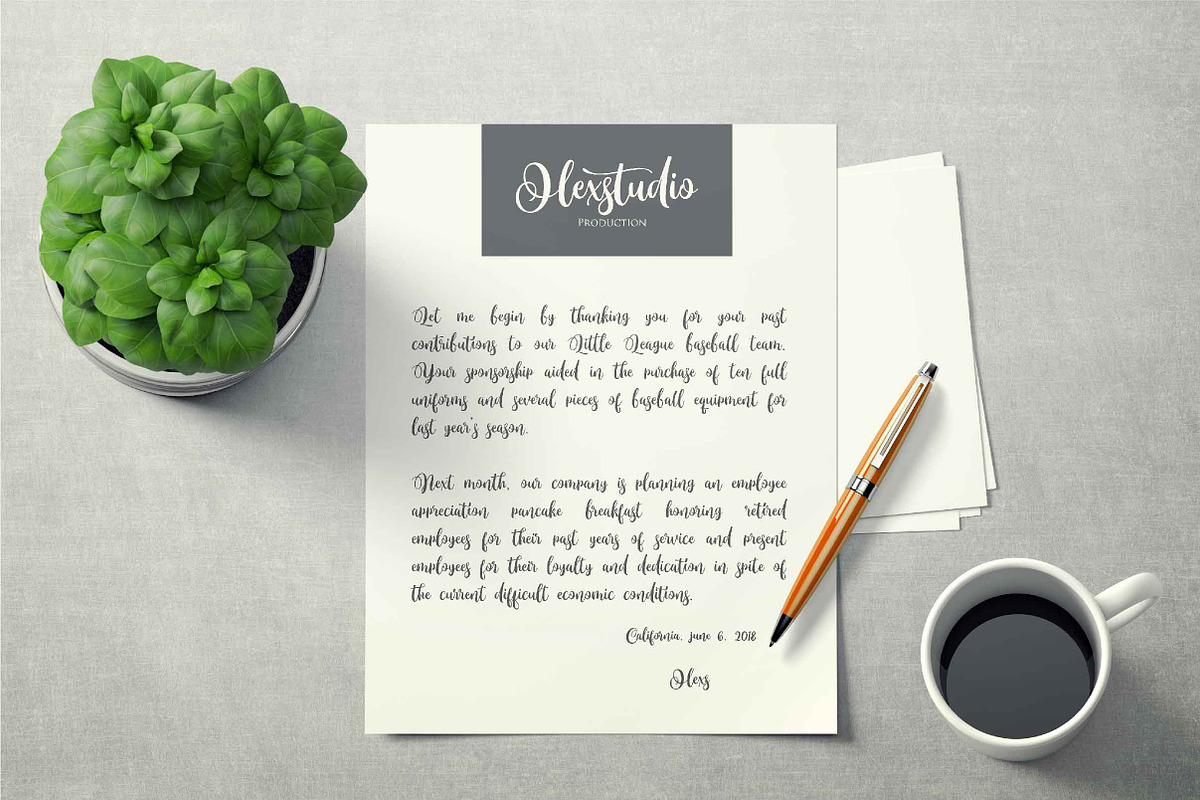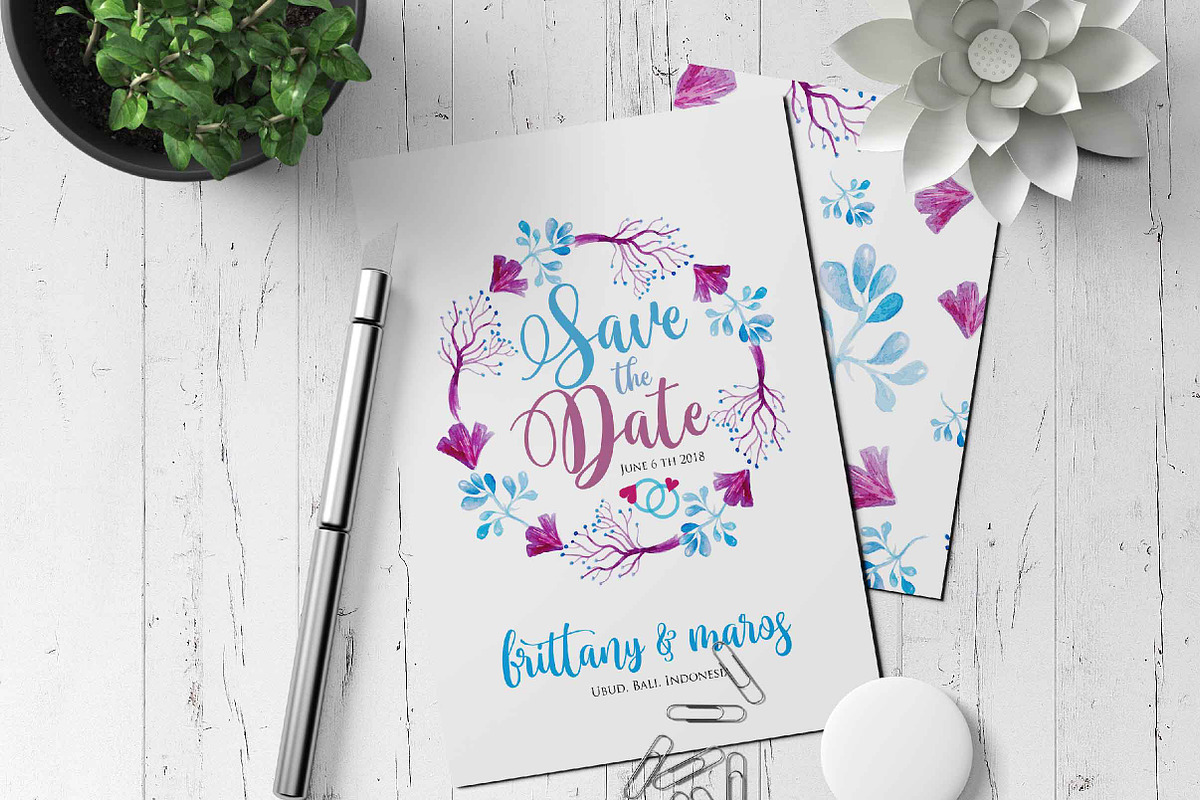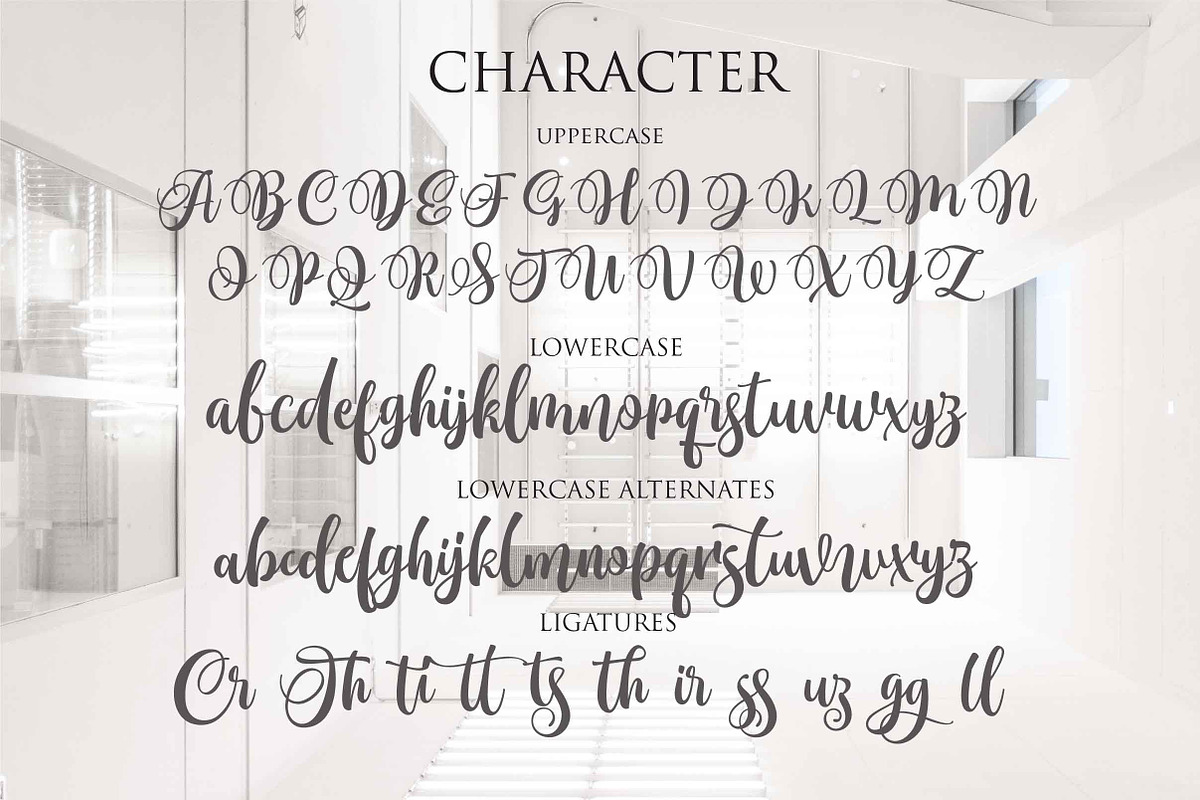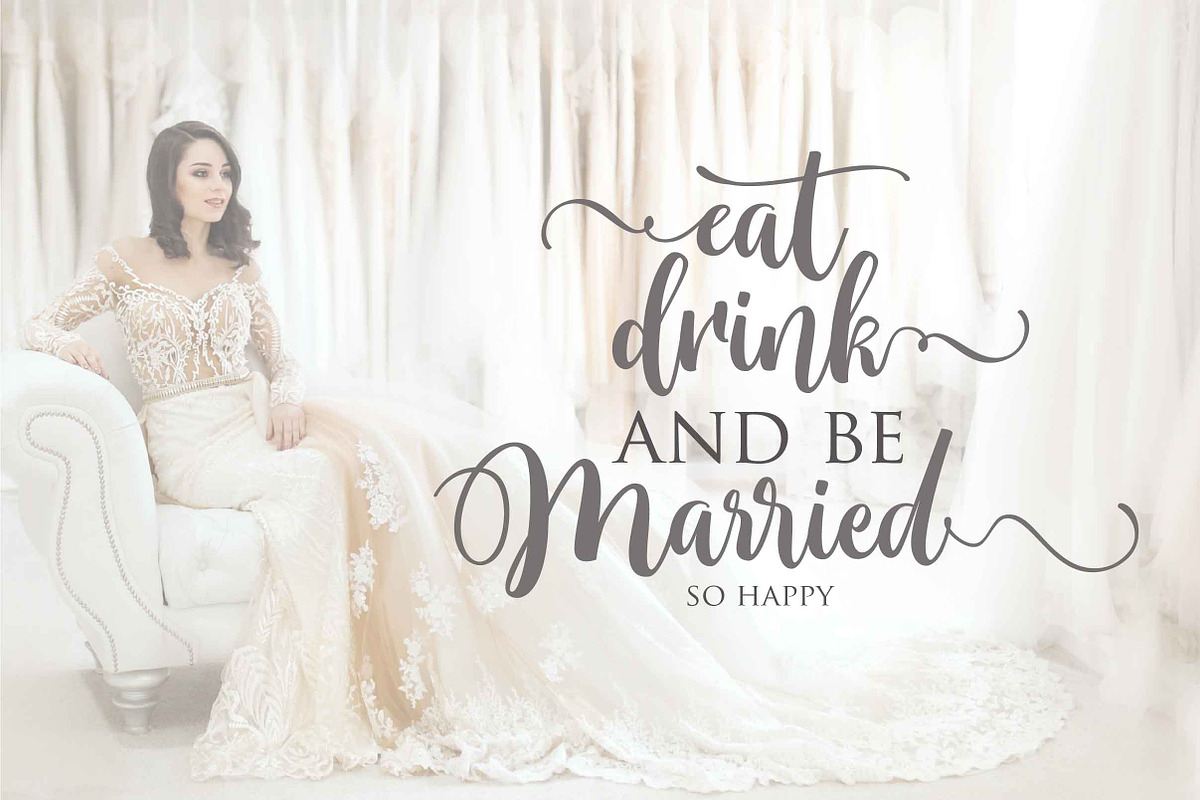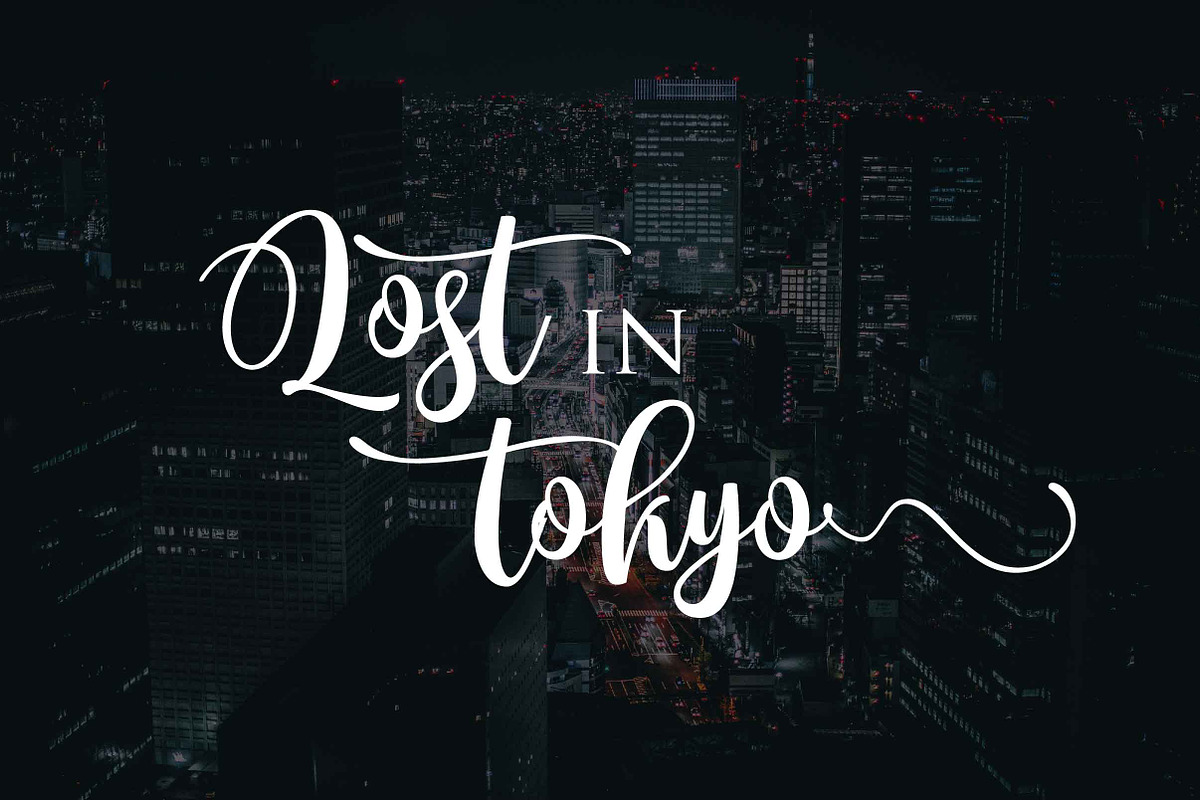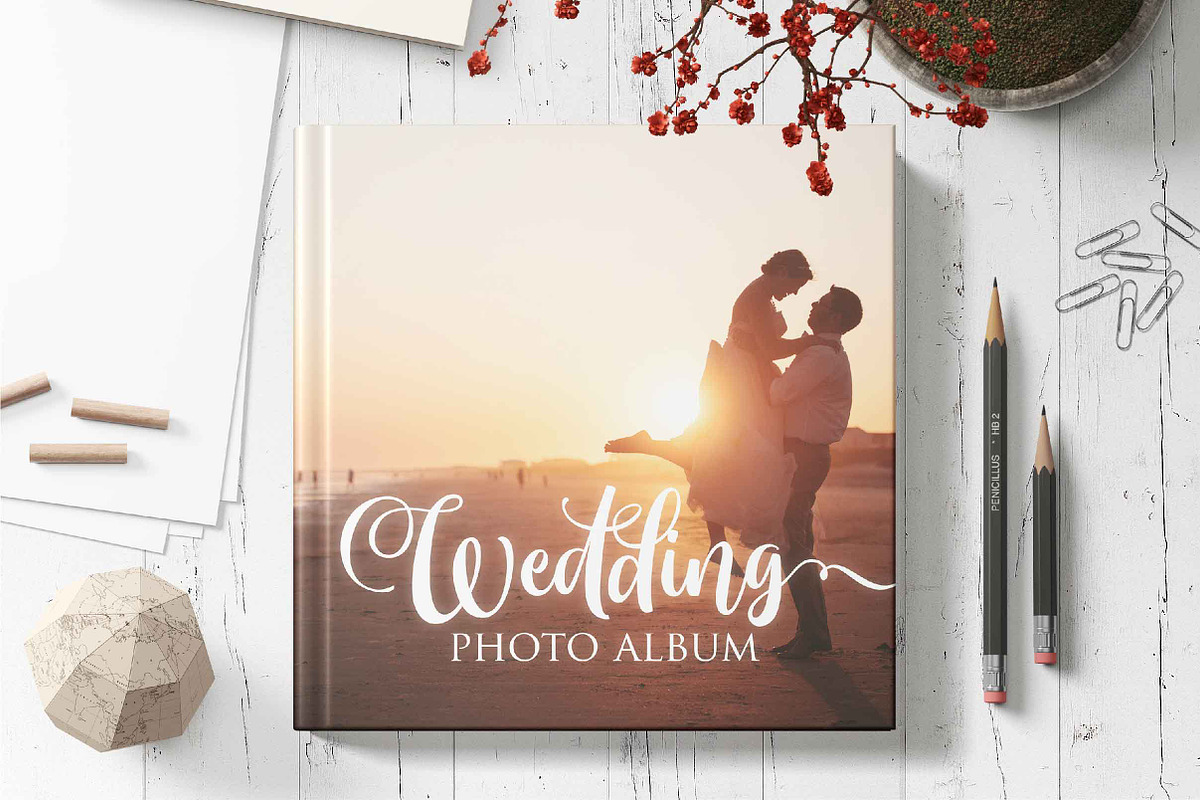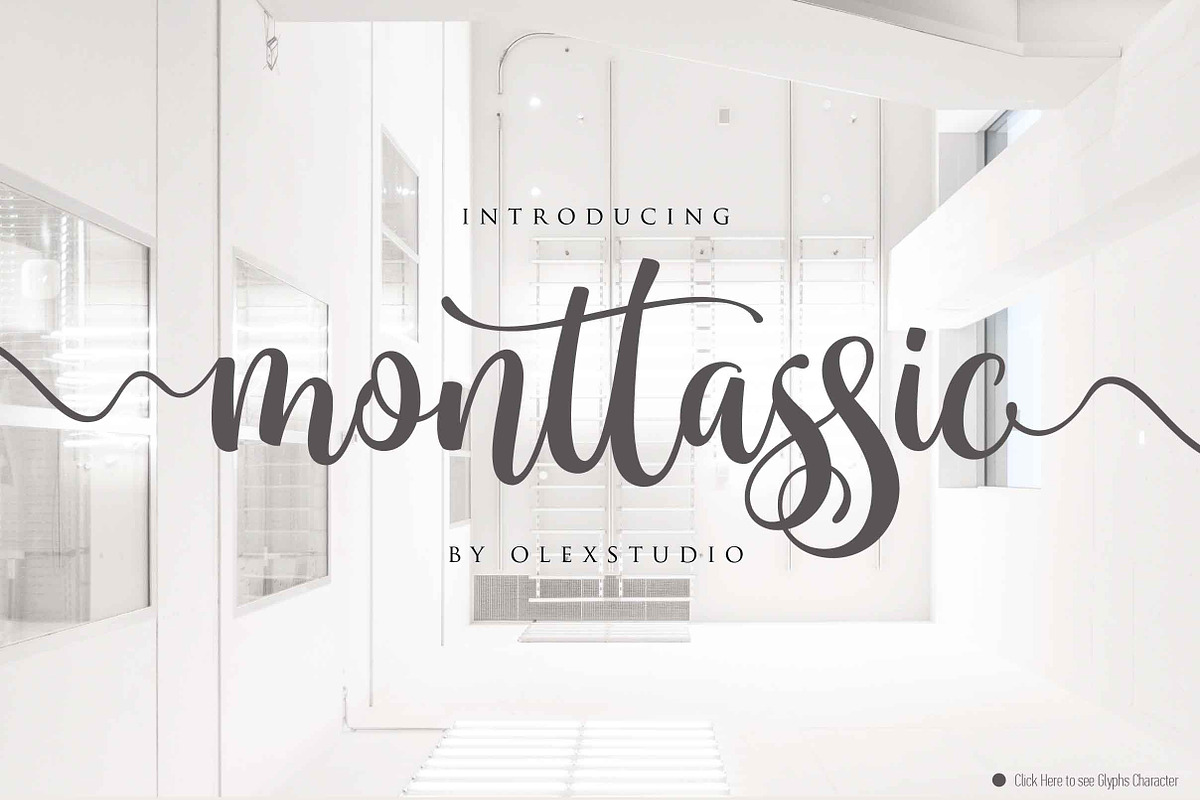
Monttassic - Luxury Script Font
MONTTASSIC is a beautiful Modern clean handlettering font Typeface, This Font will look gorgeous on all your designs, wedding invites, branding materials, logo's, t-shirt, poster, business cards, quotes and all project design other.
MONTTASSIC contains standard characters, lowercase, Lowercase Alternates, Uppercase, Uppercase Alternates, numbers, punctuation, ligatures and international glyphs.You will receive the OTF,TTF files.